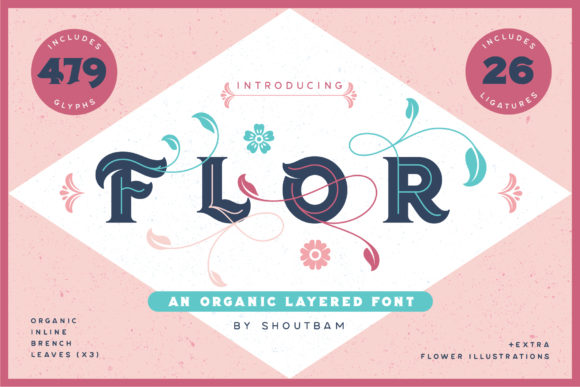
Flor Font
Dive into the world of Flor Font, the breathtaking display font that will transform your design vision into an artistic masterpiece. Crafted by the skilled artisans at Shoutbam, Flor Font boasts a versatile family of 6 unique styles that cater to your every creative whim. Explore the vast repertoire of over 540 glyphs, including 26 captivating ligatures, and unleash your inner artist.
But that's not all! To sweeten the deal, Flor Font comes with a cherry on top—28 exquisite floral ornament illustrations that add an extra touch of elegance and charm to your projects.
With Flor Font, your designs will bloom with beauty and allure. Its captivating curves and delicate strokes will leave a lasting impression on your audience, whether you're creating stunning logos, eye-catching social media graphics, or enchanting invitations.
Harness the power of Flor Font and watch as your creative projects flourish. From delicate wedding invitations to vibrant branding materials, Flor Font will effortlessly elevate your designs, leaving your audience spellbound.
So, embark on this creative journey and let your imagination run wild with Flor Font. Discover the endless possibilities and experience the sheer joy of designing with a font that's as enchanting as a spring garden. Let the Flor Font family nurture your creativity and turn your design dreams into a reality.